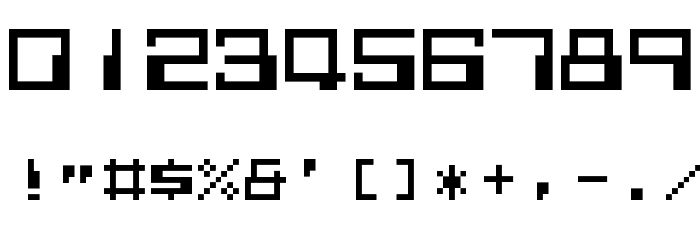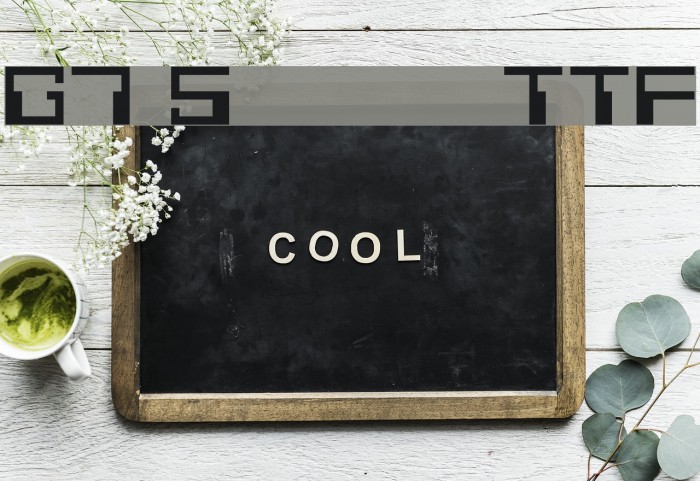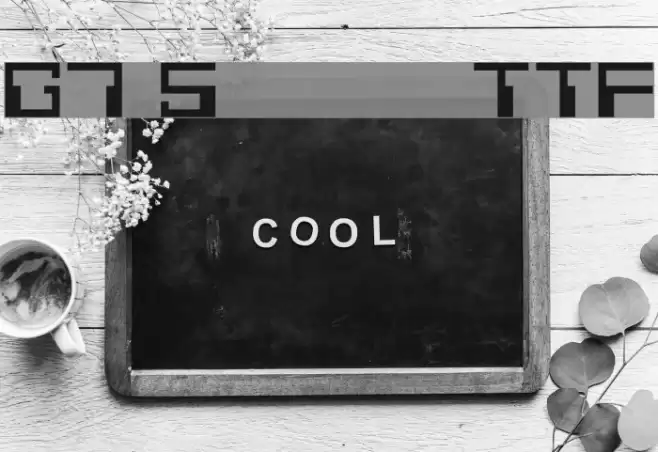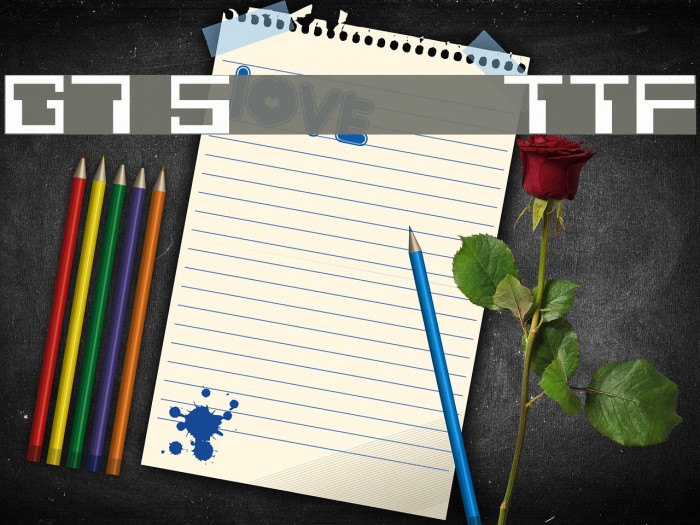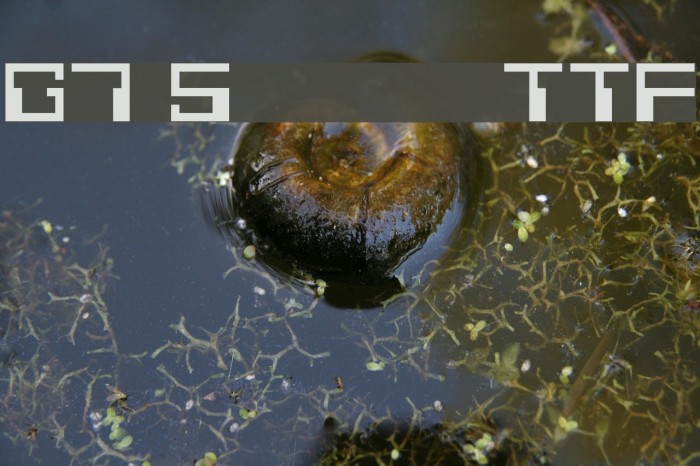
G7 Silkworm TTF Font
G7 Silkworm TTF Description
This font features a distinct, pixelated style reminiscent of early digital and arcade aesthetics. Each character is constructed with a blocky, grid-like appearance, emphasizing a retro, technological vibe. The uppercase letters are bold and uniform, while the lowercase letters maintain the same pixelated structure, ensuring consistency across all characters. Numbers and special characters follow the same design principles, making the font ideal for projects that require a digital or vintage computer theme. The overall design is straightforward yet impactful, with a strong emphasis on geometric shapes.
| Proposed Projects | Ideal for video game design, retro-themed posters, digital art projects, and technology-related branding. |